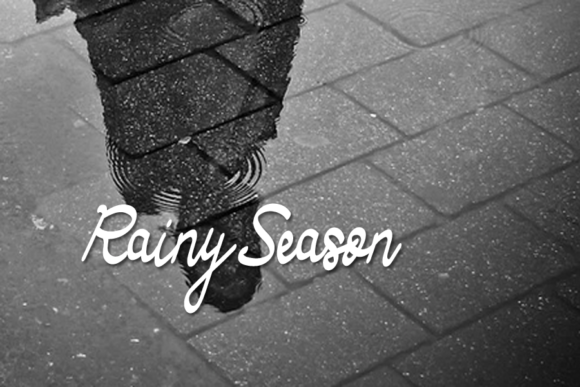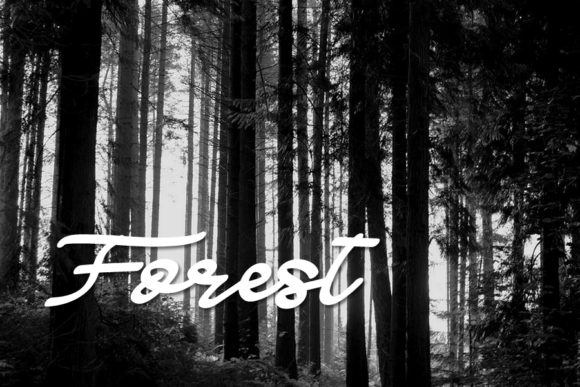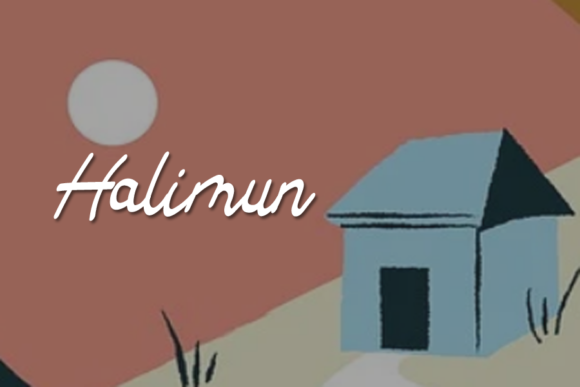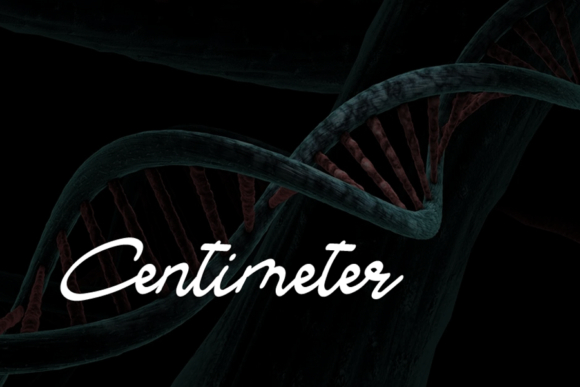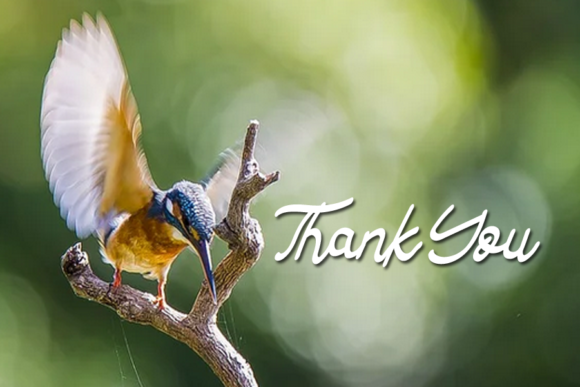
Unleashing Creativity with Blacky Font
Have you ever stared at a blank page, struggling to find the perfect font to bring your design to life? That moment of frustration is all too familiar for many creatives. But what if I told you there’s a font that can instantly elevate your work and make it stand out from the crowd?
Enter Blacky Font, a unique and captivating handwritten font that’s as simple as it is striking. Its skinny lines and bold strokes create a strong visual effect that’s sure to grab attention. Whether you’re designing a logo, social media post, or marketing campaign, Blacky Font is the perfect addition to give your creation that extra oomph.
For designers, Blacky Font is a valuable tool that can help take their work to the next level. Its versatility and unique style make it a must-have in any design arsenal. So why settle for an ordinary font when you can make a statement with Blacky Font?
Key Features of Blacky Font
- Unique Characteristics: Blacky Font features a unique, modern design with bold lines and a distinctive feel, making it perfect for headlines and titles.
Blacky Font Review
Overall, I think Blacky Font is a decent font, but it’s not without its flaws. Let’s dive in and explore what works well and what doesn’t.
- Blacky Font has a unique and modern aesthetic, making it perfect for trendy designs.
- The font is highly legible, even at smaller font sizes.
- It’s a great choice for digital designs, as it’s optimized for screens.
- Blacky Font can feel a bit too playful for more formal or professional designs.
- The font’s bold weight can be difficult to read in certain contexts, such as body text.
- There aren’t many language support options available, which may limit its use in multilingual designs.
Overall, I’d say Blacky Font is a solid choice for designers looking for a modern, trendy font. However, it’s not the best option for every project. With a little creative restraint, Blacky Font can be a great addition to your design toolkit.
Blacky Font Practical Application Guide
Getting the Most Out of Blacky Font
To get the most out of Blacky Font, use it sparingly to add emphasis and visual interest to your design. Avoid using it as the primary font, as it can be overwhelming. Experiment with different font sizes and styles to create a balanced and visually appealing design.
Blacky Font is commonly used in headings and titles to add emphasis and visual interest to a design. It’s also used in body text to add a touch of elegance and sophistication. Use it in logos, branding materials, and other design elements to create a unique and memorable visual identity.
Alternatives to Blacky Font
Montserrat is a modern sans-serif font designed for digital use. It is ideal for titles and headings due to its clean and geometric structure. Montserrat is a great alternative to Blacky Font for designers who want a more contemporary look. While Montserrat is more geometric and clean, Blacky Font has a more rugged and distressed feel.
Great Vibes is a handwritten font that features a unique and expressive style. It is perfect for designers who want to add a personal touch to their projects. Great Vibes is a good alternative to Blacky Font for designers who want a more casual and relaxed feel. Unlike Blacky Font, Great Vibes has a more organic and handwritten feel.